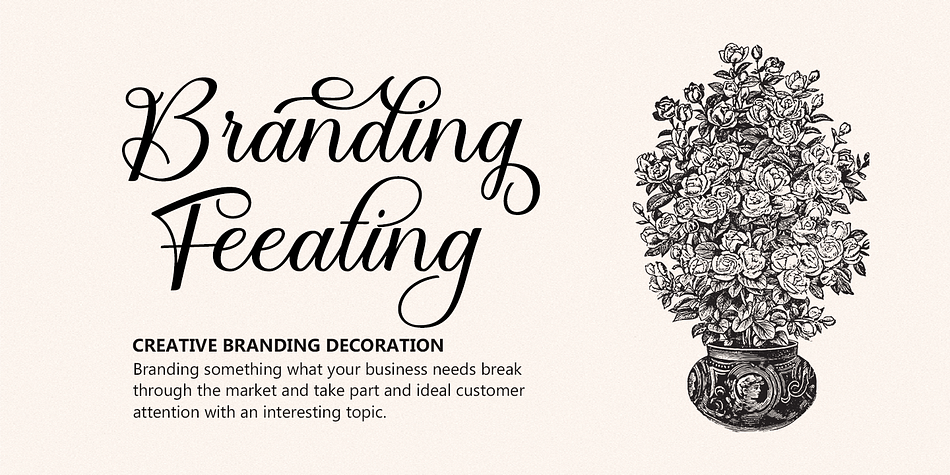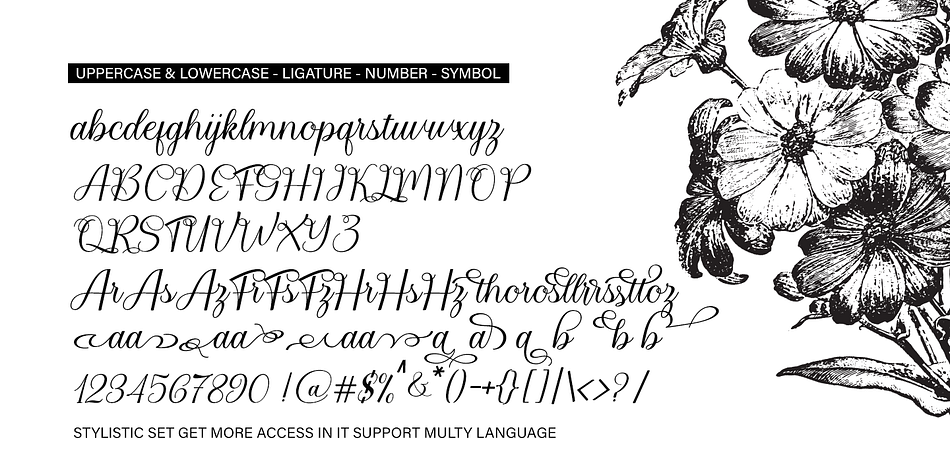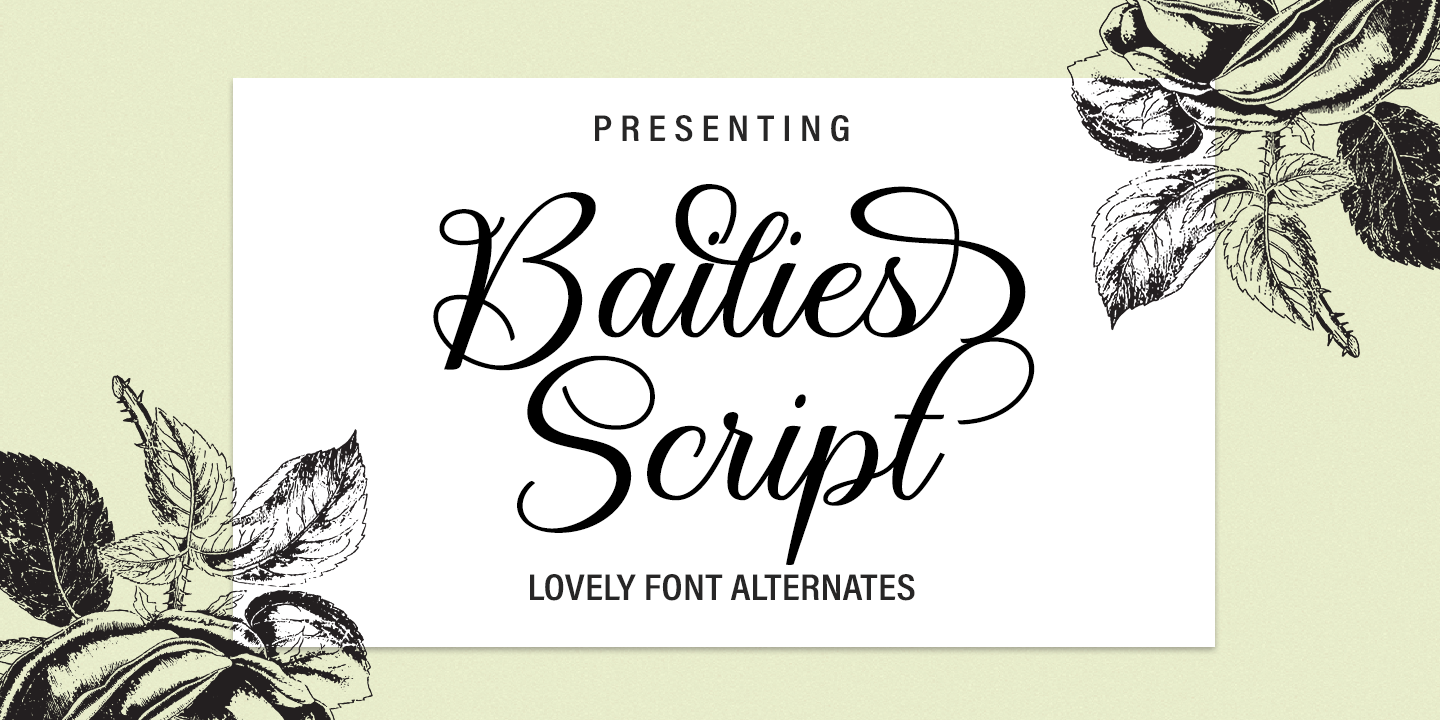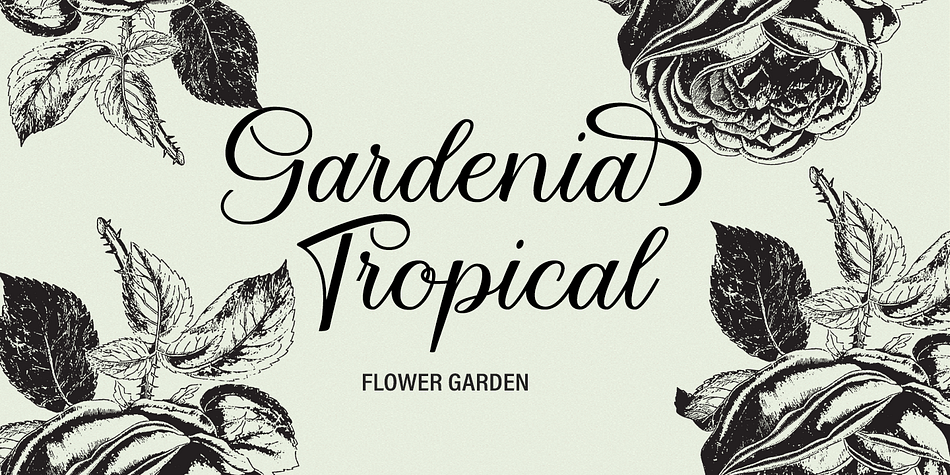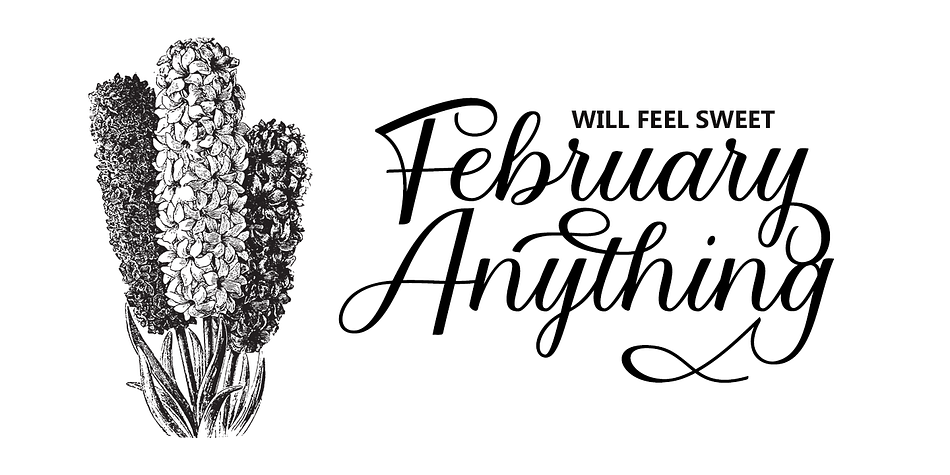
Bailies Script
Bailies Script is a modern calligraphy and script font family published by Gatype.
Bailies Script is a handwritten inspired font with an aesthetic touch.
Bailies Script is versatile enough for web and print and can be used in projects such as stationery, packaging, clothing, wedding stationery, prints, quotes, social media graphics, planners, greeting cards, logos, branding and many more. .
The script includes a set of uppercase characters, numbers, Alernates etc